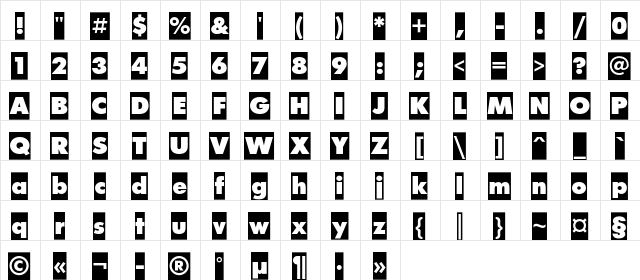
FuturaFuturisCameoExtraBoldC Regular Font Preview
FuturaFuturisCameoExtraBoldC Regular
Design Context for FuturaFuturisCameoExtraBoldC Typeface
FuturaFuturisCameoExtraBoldC has a distinctly futuristic character, with geometric precision and clean angles that feel at home in technology, gaming, and sci-fi contexts. Its bold stroke weight gives it real presence on the page.